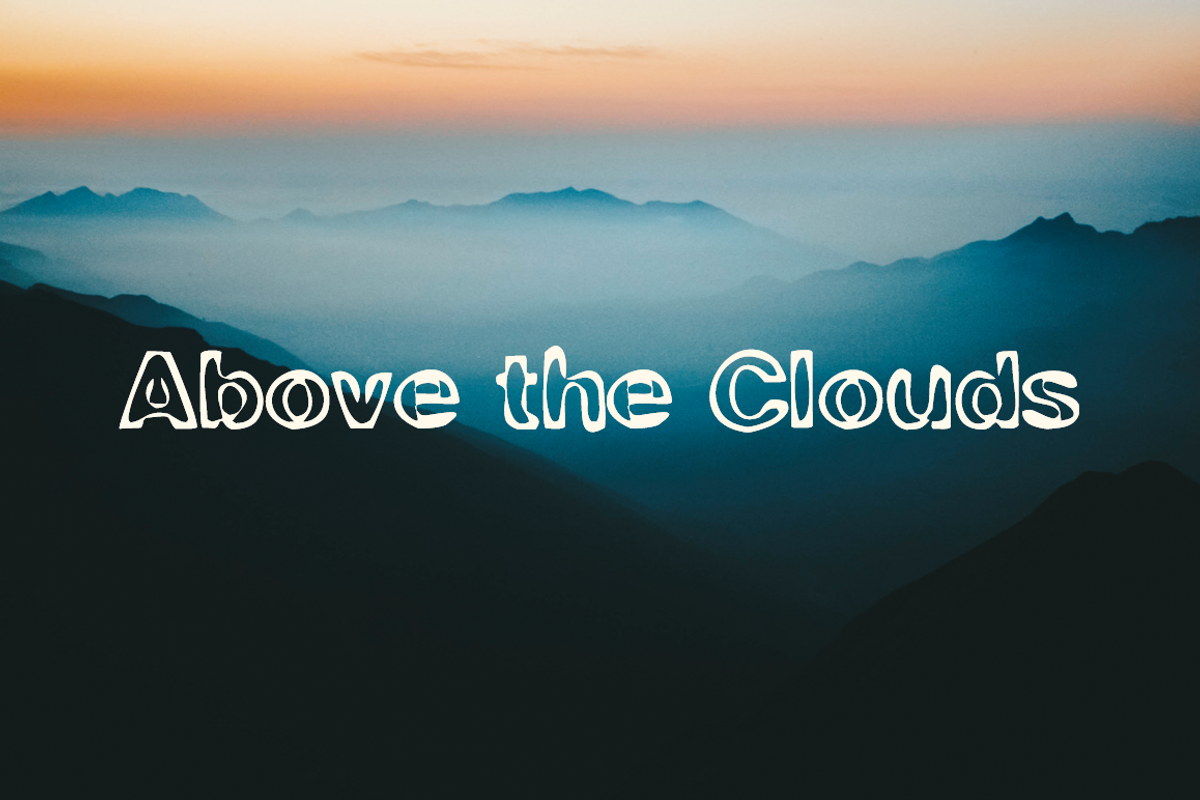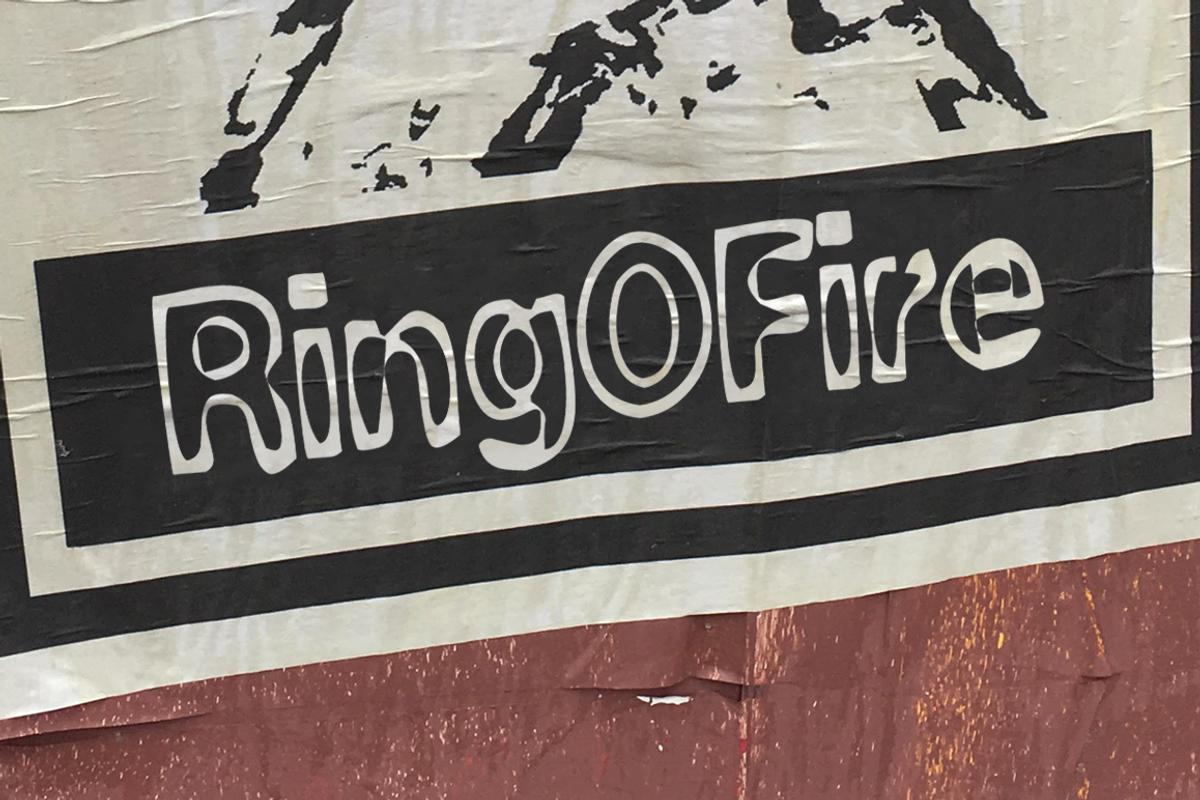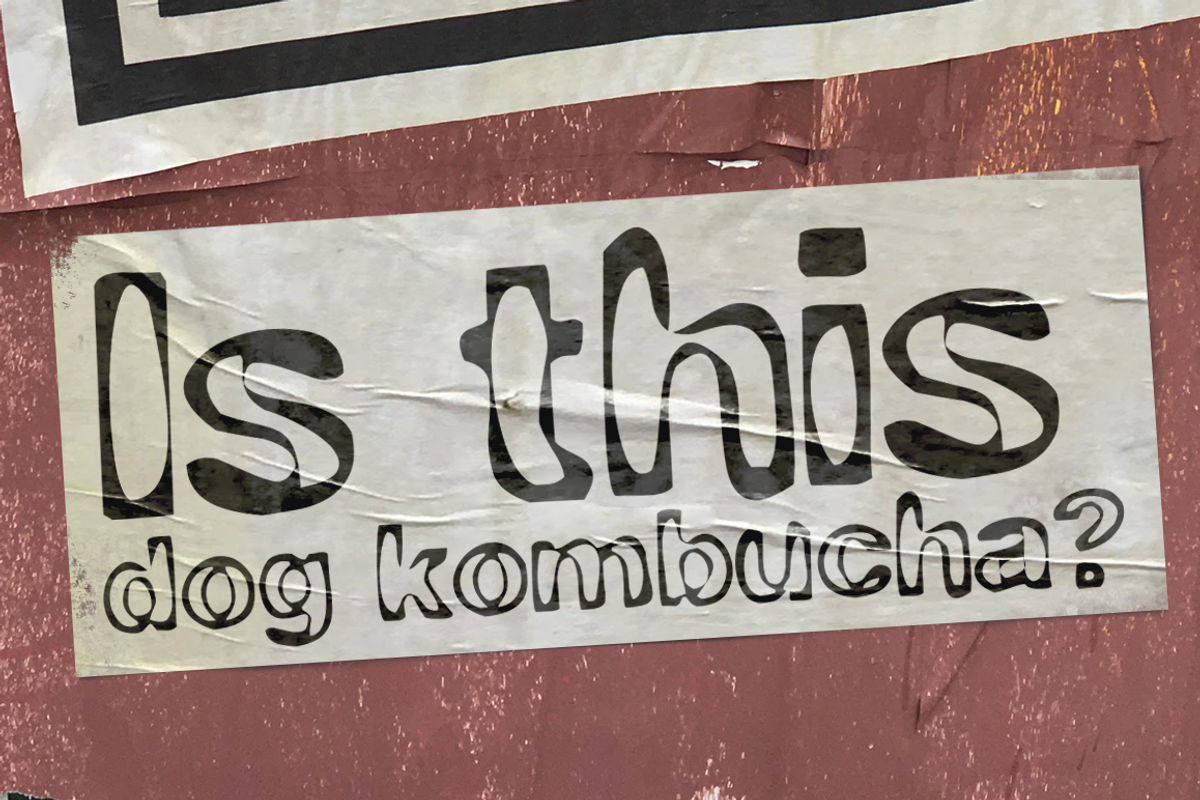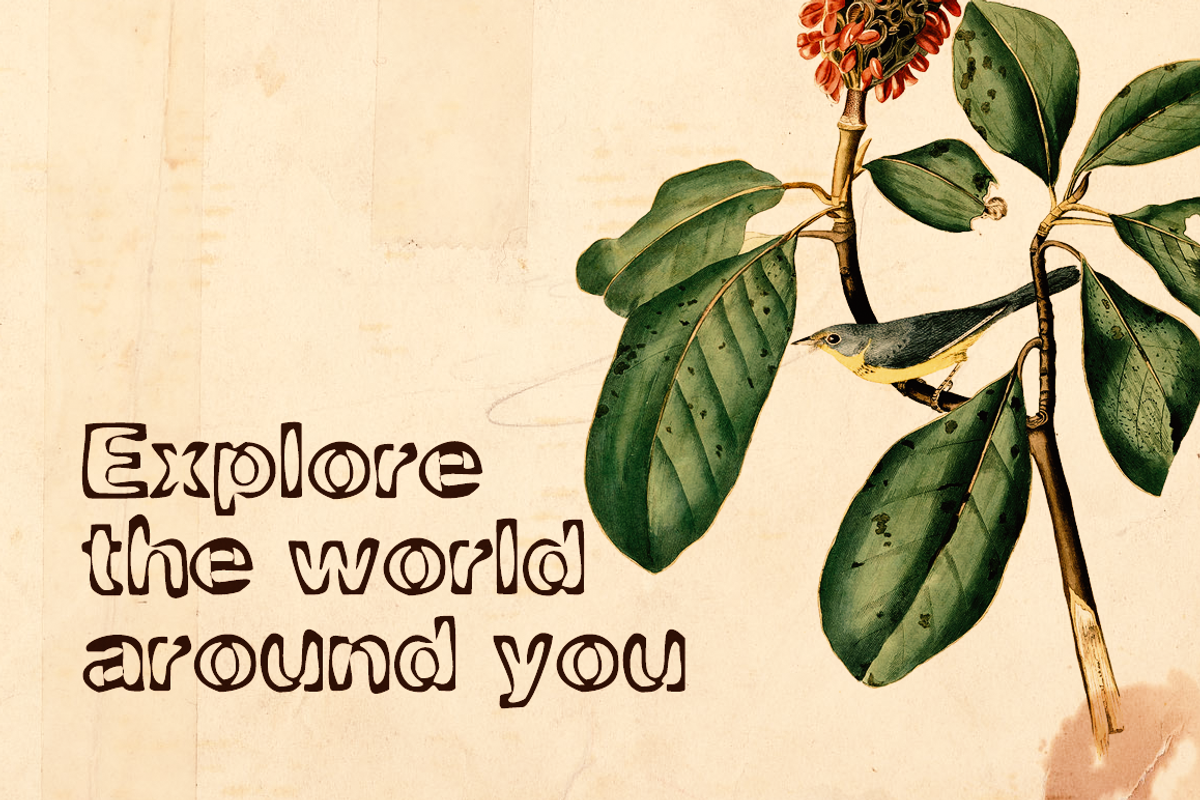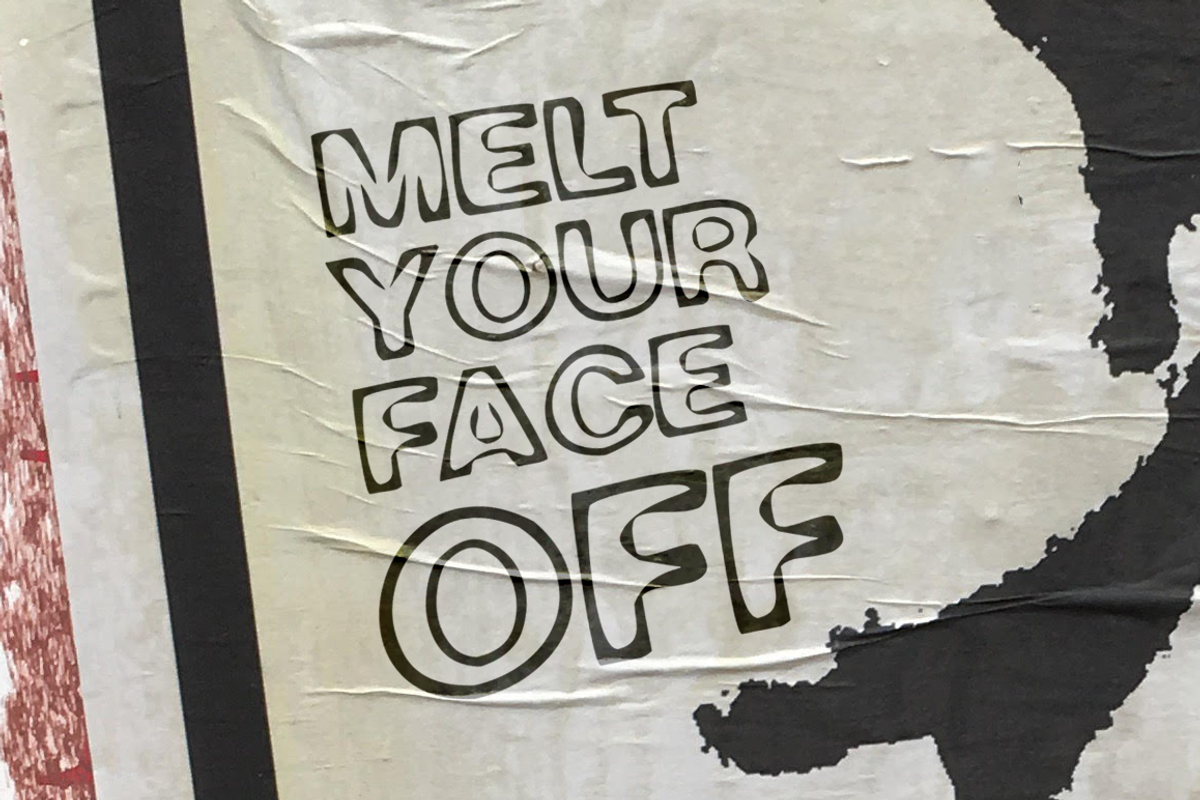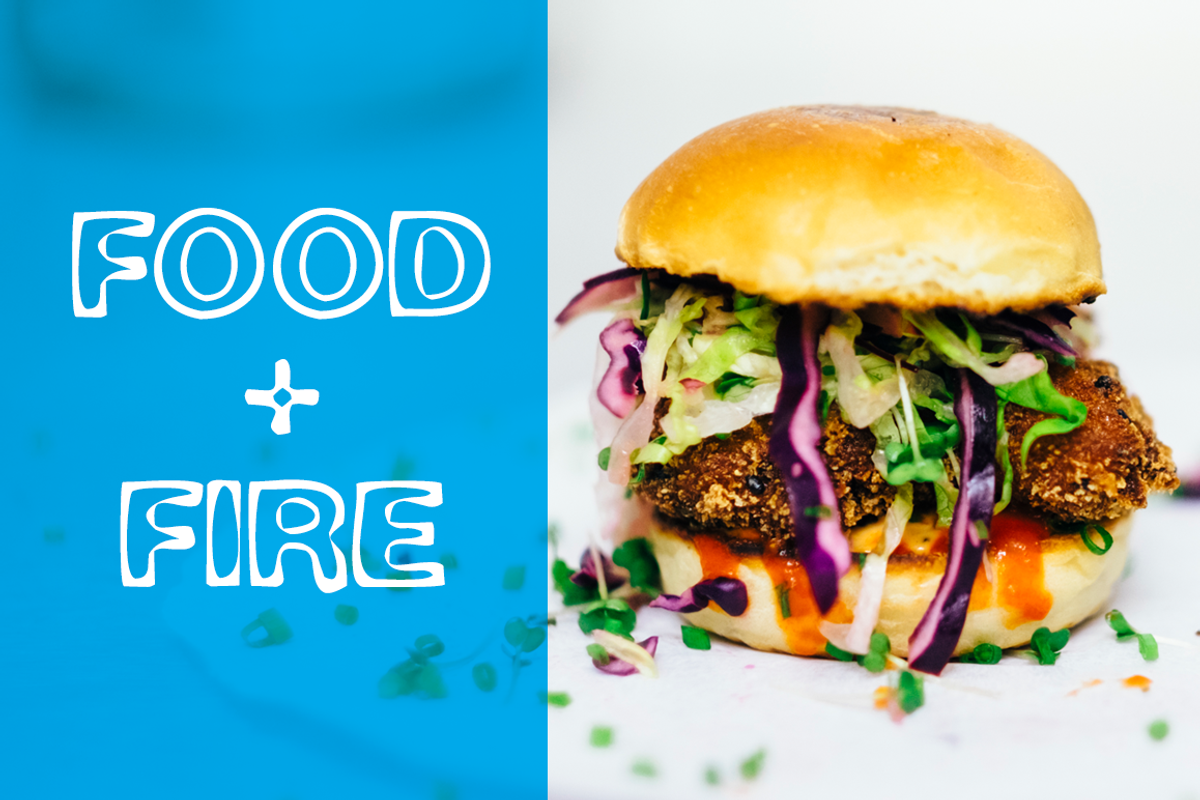
RingOFire
RingOFire Fall into the burning RingOFire. This is a grunge outline font with attitude to spare. It works equally well for a logo, punk rock poster or a retro style menu. Includes a full character set with numbers, punctuation and accents.
Ring O Fire was inspired by a game I used to play as a kid - where you suspend a coin over a glass with a paper napkin and take turns burning holes in the napkin with a cigarette until the coin drops. Is that weird or what?
- Includes a full character set with numbers, punctuation and accents.
RingOFire by Cool Fonts fits naturally into Branding, posters, packaging, typography.